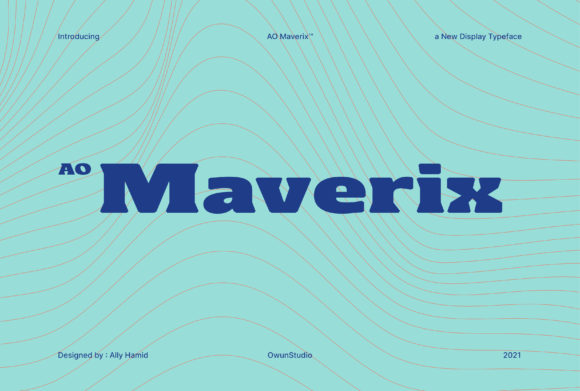
**Introducing AO Maverix: The Font That Will Ignite Your Designs**
Are you ready to make your designs stand out and roar with a voice that demands attention? AO Maverix is the font you've been waiting for – a bold and captivating display typeface that will empower your creations with a touch of undeniable sportsmanship.
**Inspired by the Energy of Modern Sports**
Drawing inspiration from the fierce determination and electrifying spirit of sports, AO Maverix captures the essence of athleticism and translates it into a font that exudes power and dynamism. Whether you're designing for football, rugby, marathon, or any other fast-paced, adrenaline-pumping sport, AO Maverix will propel your creations to the finish line.
**Unleash Your Creativity**
With AO Maverix in your creative arsenal, you'll discover a font that grants you unparalleled freedom to express yourself. Its striking letterforms, sharp angles, and bold strokes ignite a sense of momentum and energy, inviting you to push boundaries and conquer new design frontiers.
**A Font for the Digital Champions**
In a world where digital presence reigns supreme, AO Maverix gives your online content an edge that will leave a lasting impression. Its crisp lines and readability ensure that your message will cut through the noise and strike a chord with your audience. From eye-catching website headers to powerful social media posts, AO Maverix will elevate your digital presence to new heights.
**A Versatile Performer**
AO Maverix is not just confined to the world of sports-themed designs. Its versatility extends far beyond the stadium, making it a font that can conquer any creative challenge you throw its way. From branding and packaging to fashion and lifestyle, AO Maverix adapts effortlessly to a wide range of styles and aesthetics.